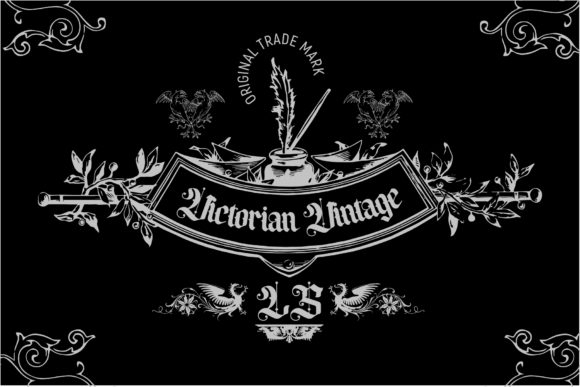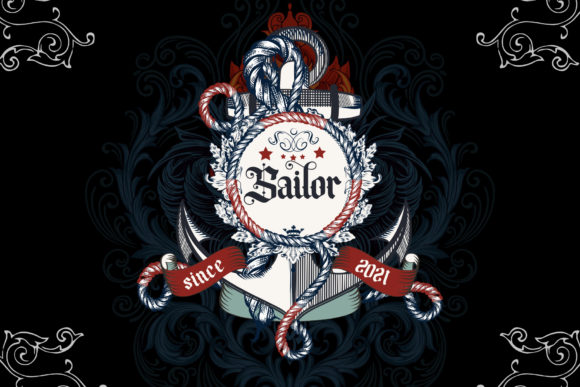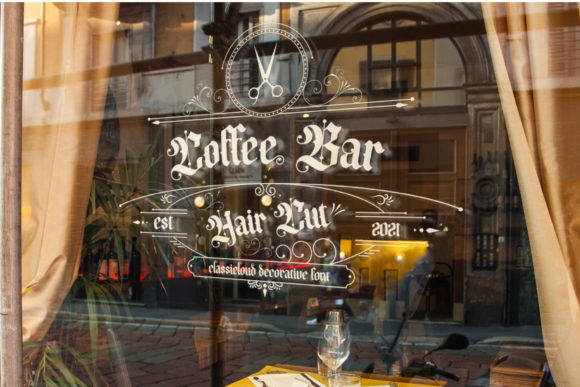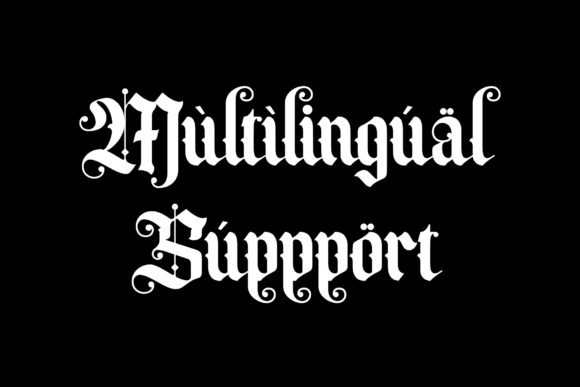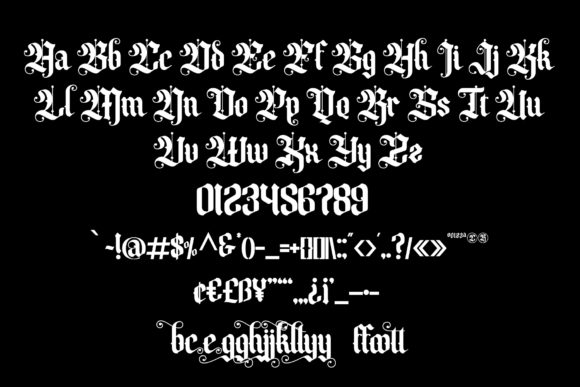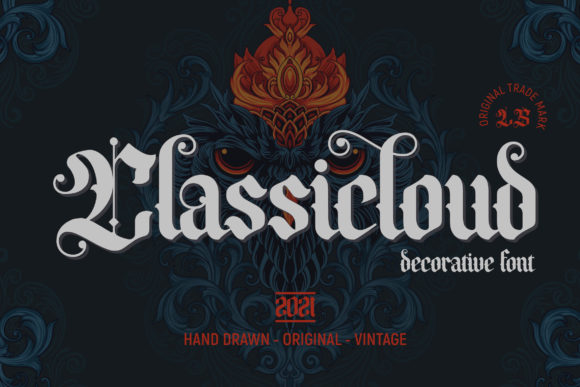
Introducing Classicloud Font: A Playfully Nostalgic Typeface with a Vintage Aesthetic
Are you a designer or crafter looking to add a touch of nostalgia to your designs? Look no further than Classicloud Font, a beautiful and unique typeface that embodies a playfully nostalgic feel and delivers an incredible vintage aesthetic. With Classicloud, you can add a special retro touch to any design idea you can think of, making it perfect for a wide range of creative projects.
The Charm of Classicloud Font
Classicloud Font is a carefully crafted typeface that draws inspiration from the classic fonts of the past. Its distinctive design features a unique blend of curved and straight lines, giving it a charming and whimsical feel that’s sure to capture the hearts of designers and crafters alike. Whether you’re working on a logo, a poster, a packaging design, or any other creative project, Classicloud Font is the perfect choice for adding a touch of nostalgia and personality.
Key Features of Classicloud Font
- Unique and distinctive design: Classicloud Font boasts a one-of-a-kind design that’s sure to make your designs stand out from the crowd.
- Playfully nostalgic feel: With its curved lines and classic proportions, Classicloud Font embodies a playfully nostalgic feel that’s perfect for adding a retro touch to your designs.
- Vintage aesthetic: Classicloud Font delivers an incredible vintage aesthetic that’s perfect for designers and crafters looking to create designs with a classic, timeless feel.
- Highly versatile: Whether you’re working on a logo, a poster, a packaging design, or any other creative project, Classicloud Font is the perfect choice for adding a touch of personality and whimsy.
Uses for Classicloud Font
Classicloud Font is an incredibly versatile typeface that can be used in a wide range of creative projects. Here are just a few ideas to get you started:
- Logo design: Use Classicloud Font to create a unique and memorable logo that captures the personality and spirit of your brand.
- Poster design: Add a touch of nostalgia to your posters with Classicloud Font, perfect for promoting events, products, or services.
- Packaging design: Use Classicloud Font to create eye-catching packaging designs that stand out on store shelves and reflect the personality of your brand.
- Social media graphics: Add a touch of whimsy to your social media graphics with Classicloud Font, perfect for creating engaging and shareable content.
Tips for Using Classicloud Font
To get the most out of Classicloud Font, here are a few tips to keep in mind:
- Experiment with different sizes and colors: Classicloud Font looks great in a wide range of sizes and colors, so don’t be afraid to experiment and find the perfect combination for your design.
- Pair with other fonts: Classicloud Font pairs perfectly with other fonts, so try combining it with a sans-serif font for added contrast and visual interest.
- Use it sparingly: While Classicloud Font is a beautiful typeface, it can be overwhelming if used too much. Use it sparingly to add a touch of personality to your designs.
Classicloud Font is a unique and beautiful typeface that embodies a playfully nostalgic feel and delivers an incredible vintage aesthetic. With its distinctive design, highly versatile uses, and tips for getting the most out of the font, Classicloud is the perfect choice for designers and crafters looking to add a special retro touch to any design idea they can think of. So why wait? Download Classicloud Font today and start creating stunning designs that capture the hearts of your audience!